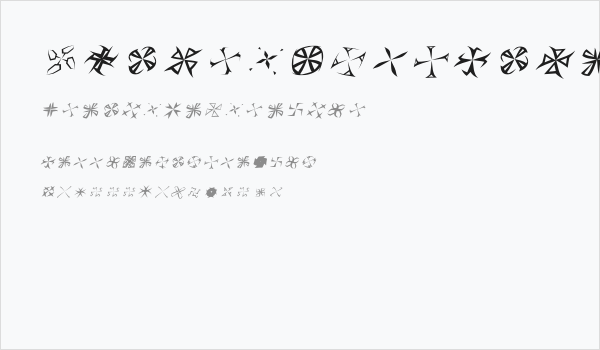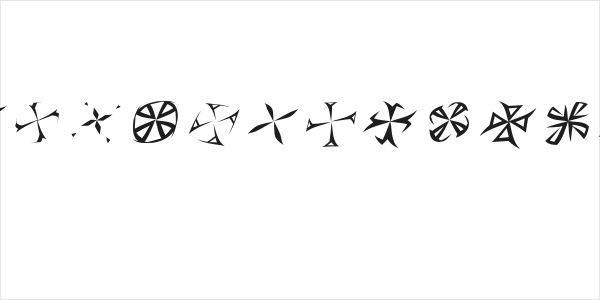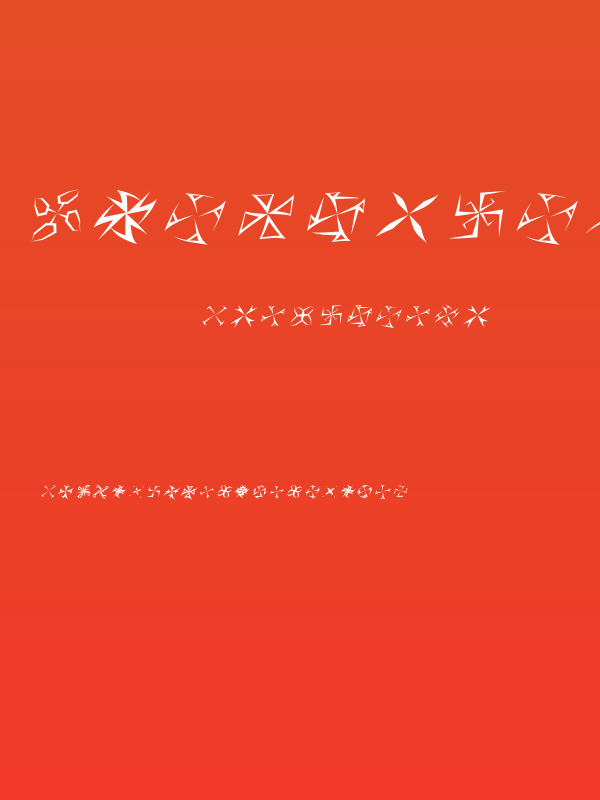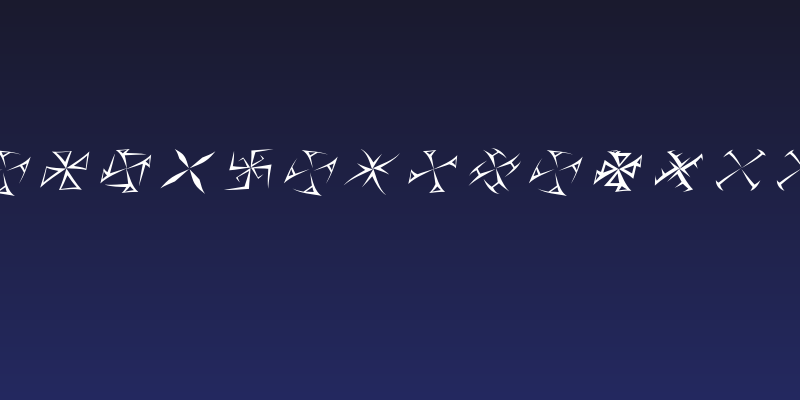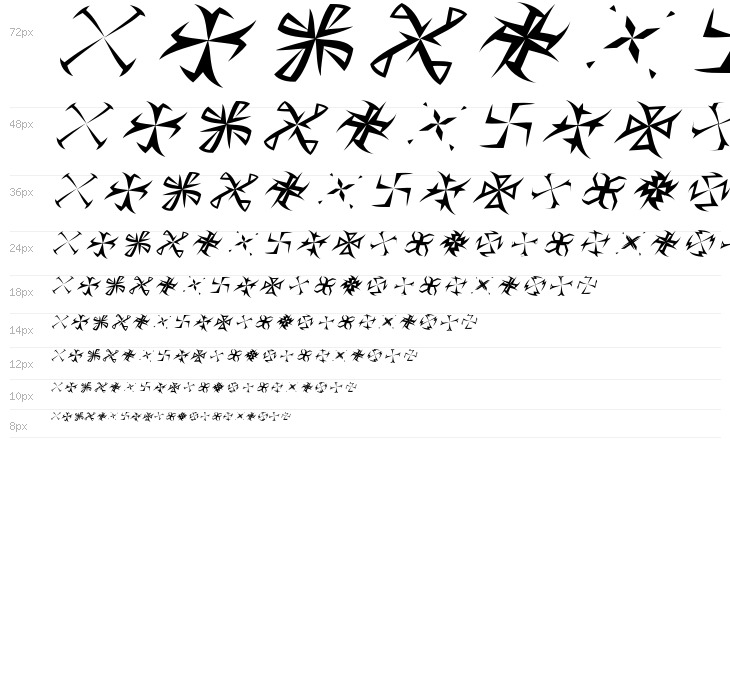
QuadrigAlphabetTwo Font
QuadrigAlphabetTwo Description
This is a highly decorative and abstract font that features intricate, geometric shapes resembling starbursts or pinwheels. Each character is uniquely designed with sharp angles and dynamic lines, creating a sense of movement and energy. The font is not easily readable for traditional text but serves as an artistic representation of letters and numbers. It is ideal for creative projects that require a bold and unconventional aesthetic. The characters are evenly spaced, with a consistent visual weight across the set, making it suitable for decorative purposes.
| Use Case | Logos, Posters, Artistic Designs |
| Proposed Projects | Ideal for artistic designs, logos, posters, and any project requiring a bold, decorative touch. |